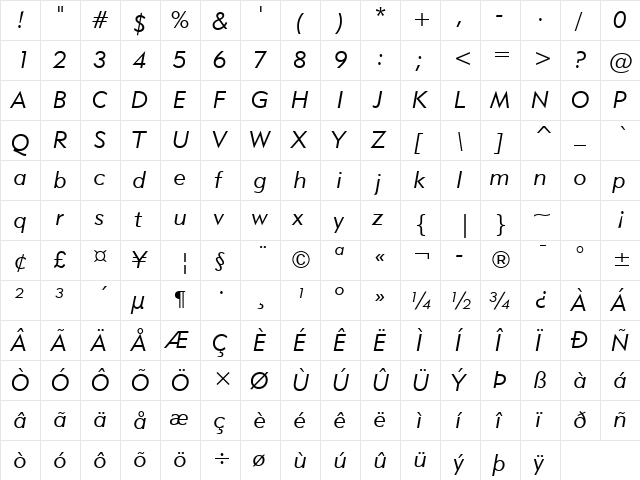
Geometr415 Lt BT Lite Italic Font Preview
Design Context for Geometr415 Lt BT Typeface
Geometr415 Lt BT offers clean, dependable letterforms without strong stylistic allegiance, making it a practical choice for designers who need flexibility. The dynamic lean of this cut emphasises speed and emphasis in any layout. Its slender proportions lend an understated elegance to any composition.
Pro Tip: Try Geometr415 Lt BT for annotation and caption copy alongside an upright companion — the contrast in angle creates a dynamic but ordered typographic system.